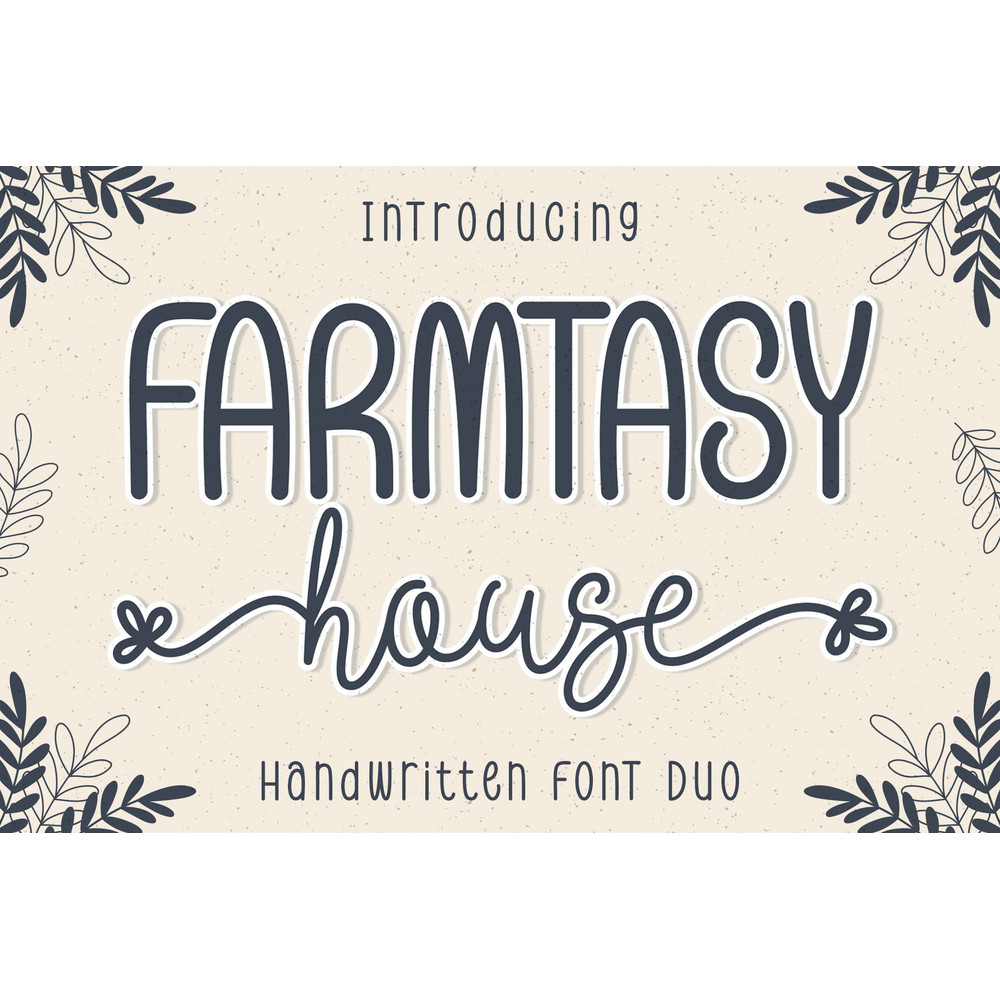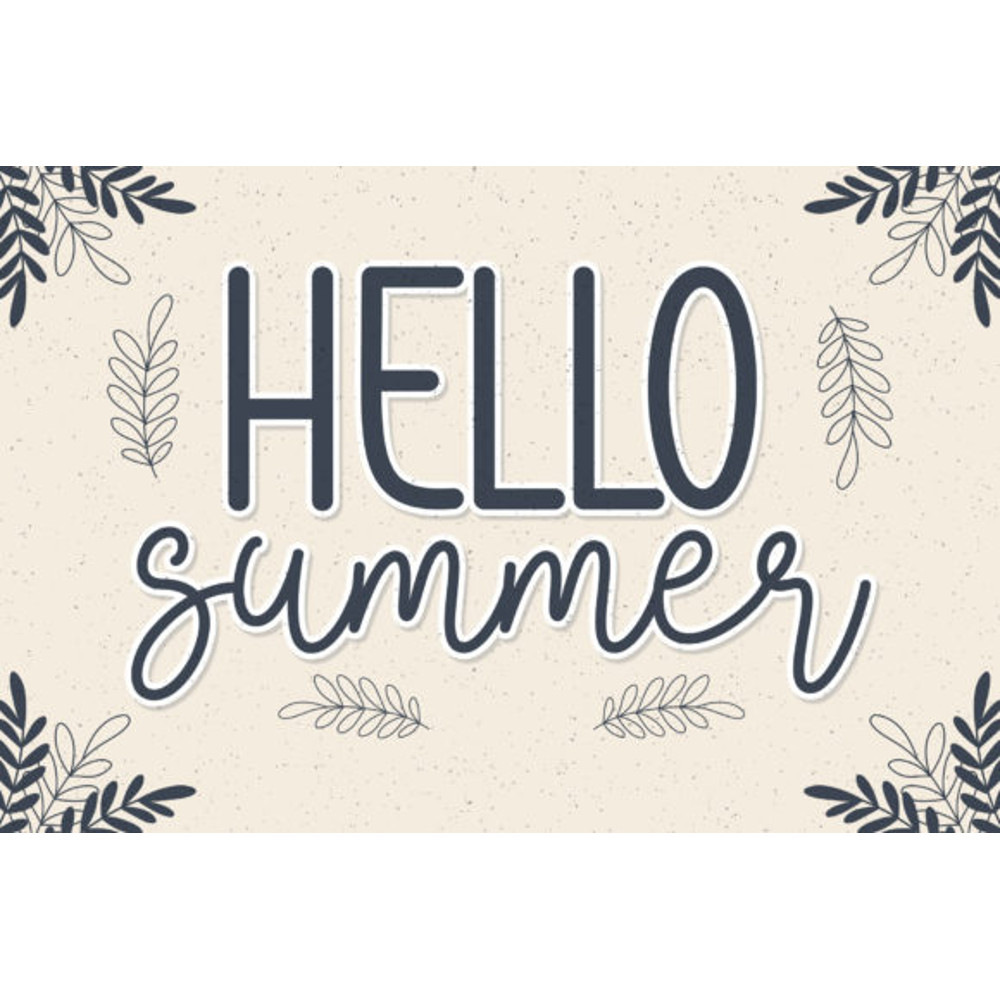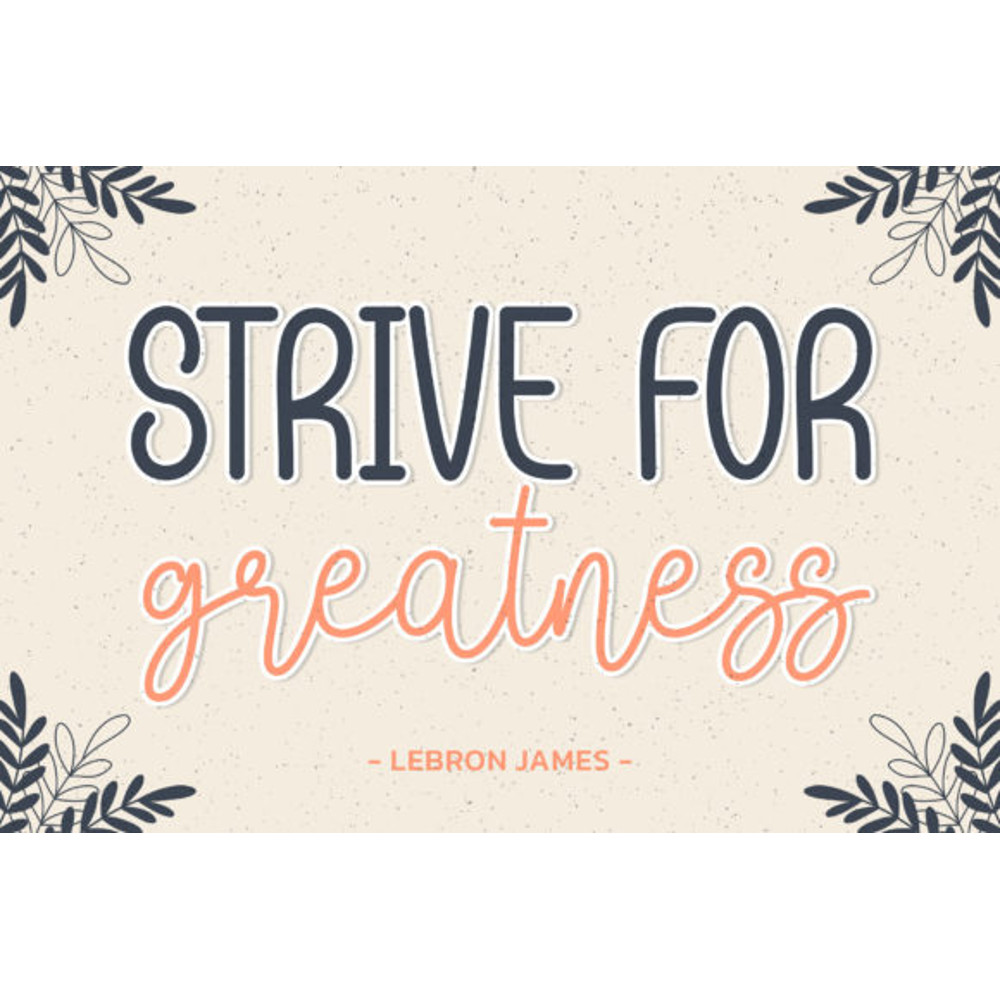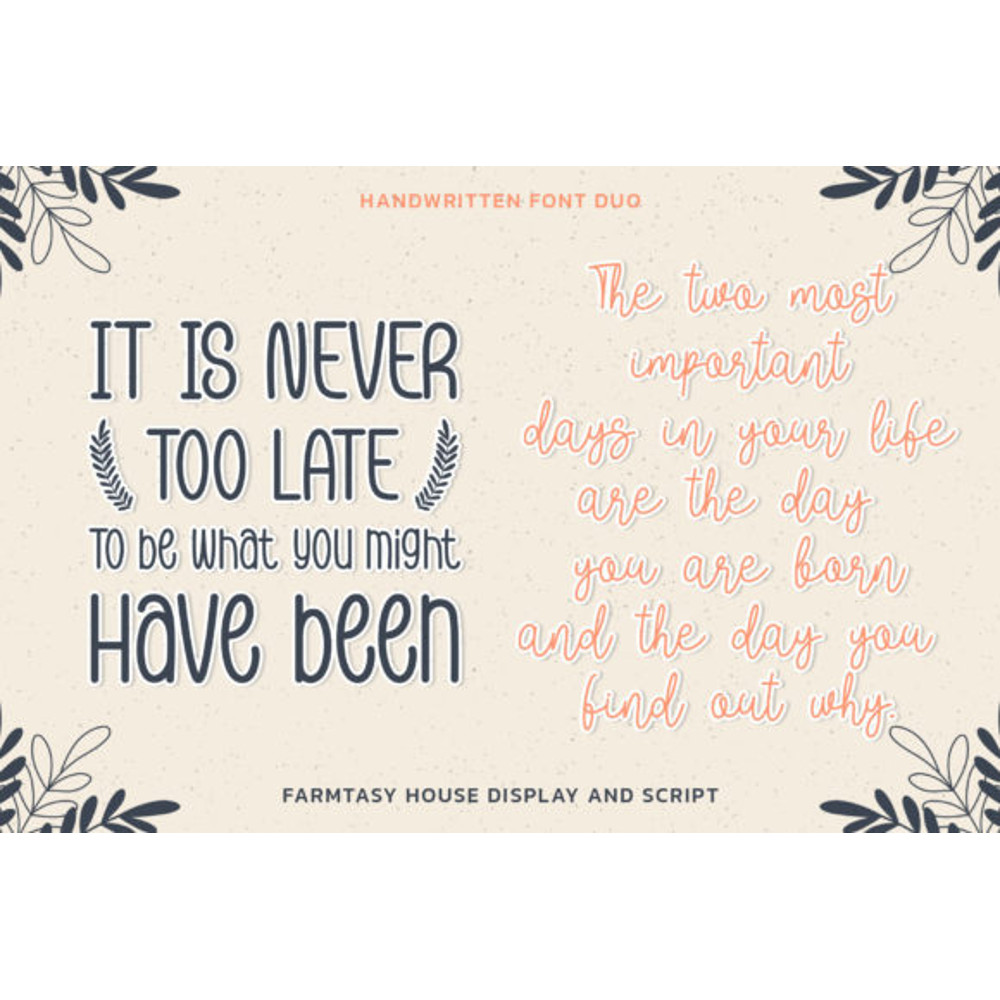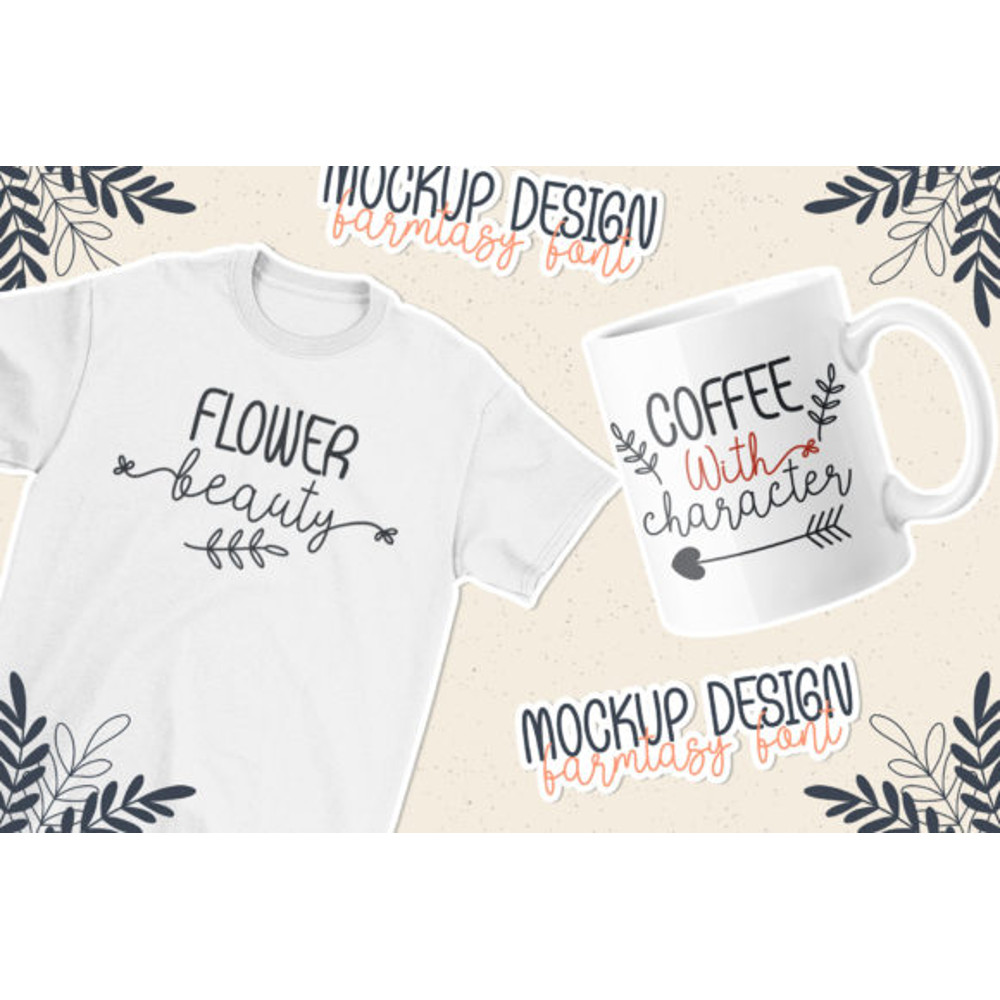
Farmtasy House is a vintage, slim and delicate duo font (script and display). This font is inspired by a farmhouse design which is suitable for cute and attractive barn weddings, cards, letters or pretty much any creation that could benefit from a retro and dainty vibe. Farmtasy House is PUA encoded which means you can access all of the glyphs and swashes with ease!